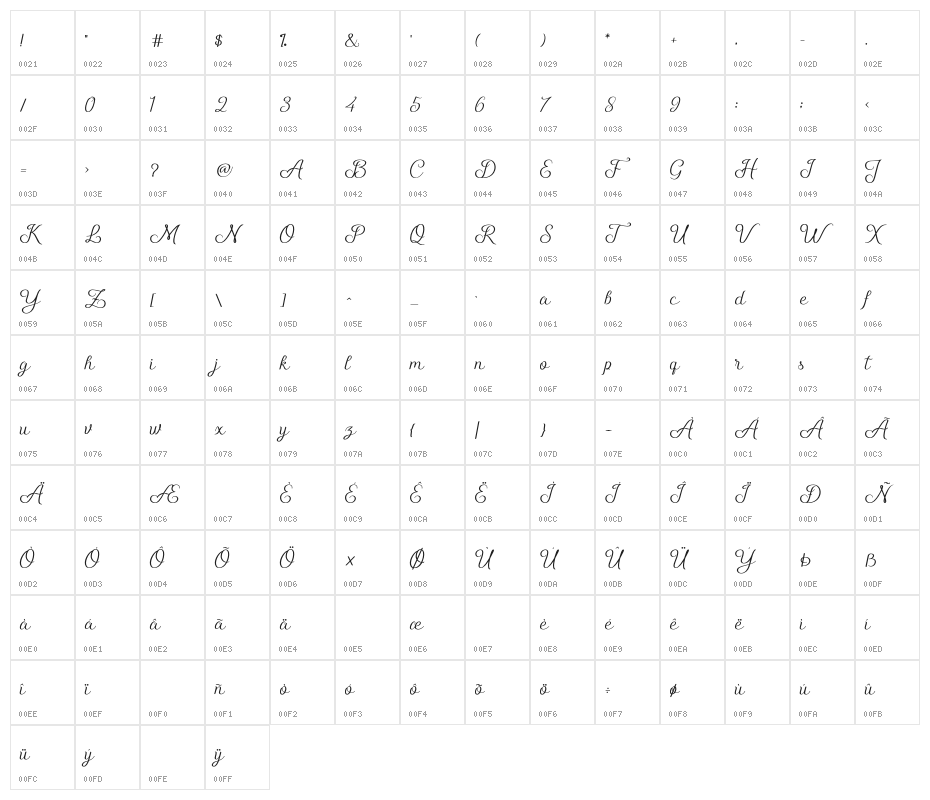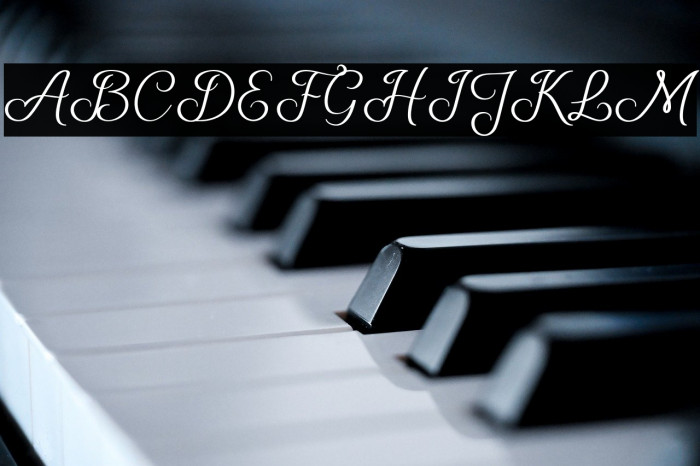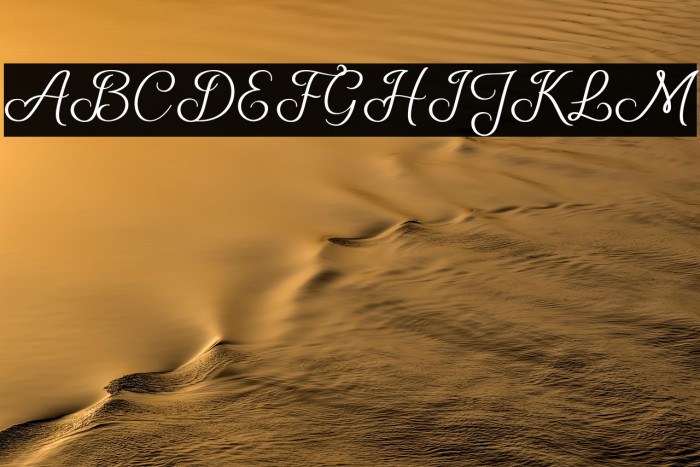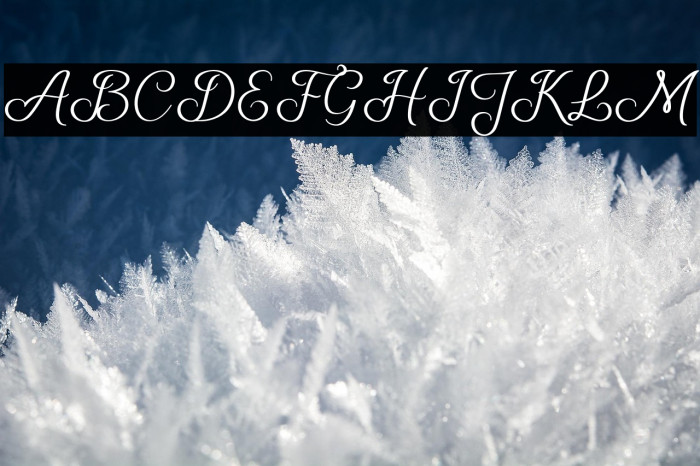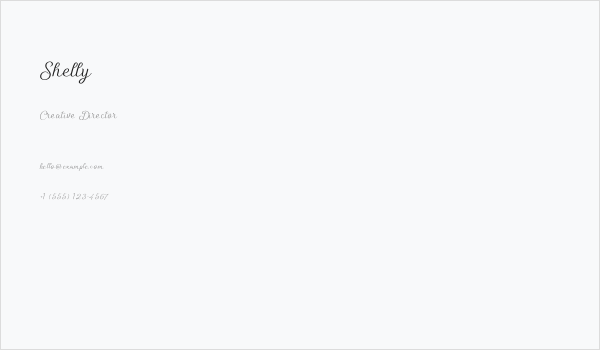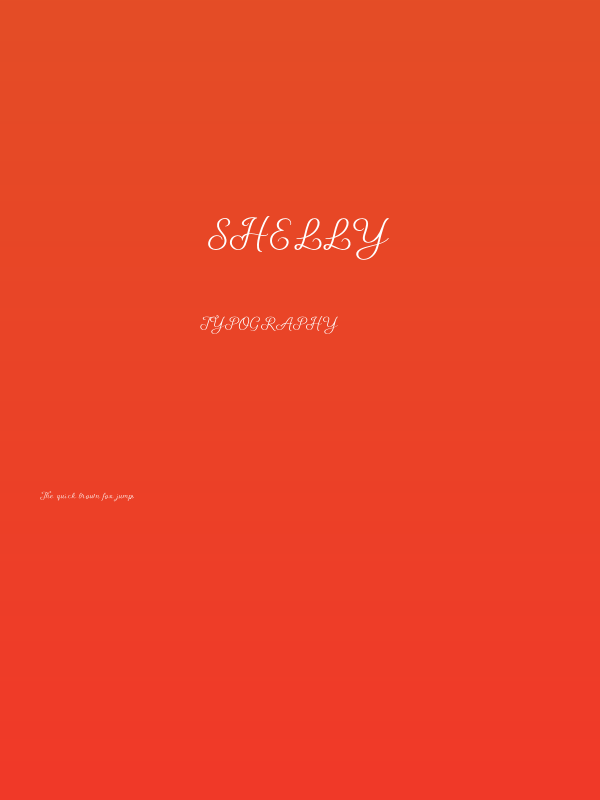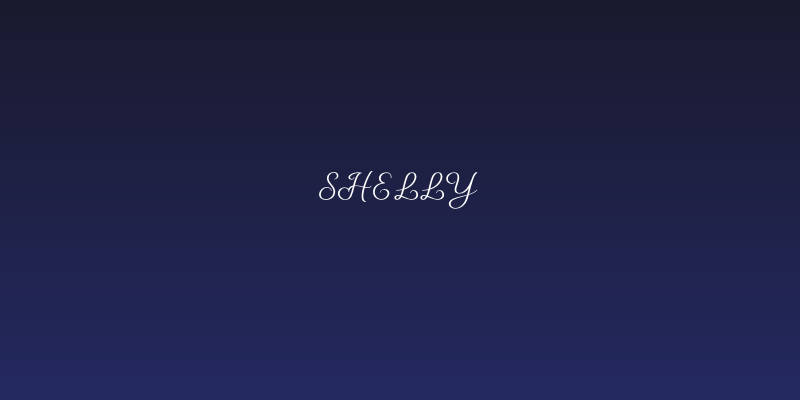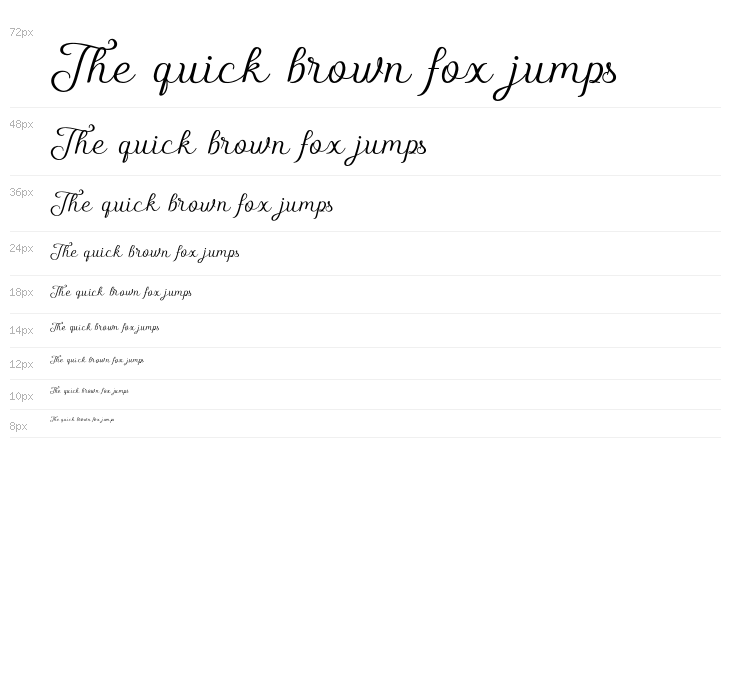
Shelly Font
Shelly Description
This elegant script font features flowing, cursive letterforms that exude a sense of sophistication and grace. The uppercase letters are characterized by their sweeping curves and delicate loops, while the lowercase letters maintain a consistent fluidity, enhancing readability. The numerals and special characters are designed to complement the overall style, with a harmonious balance between form and function. This font's intricate details and smooth connections make it ideal for projects that require a touch of elegance and refinement.
| Proposed Projects | Ideal for wedding invitations, elegant branding, greeting cards, and upscale packaging. |